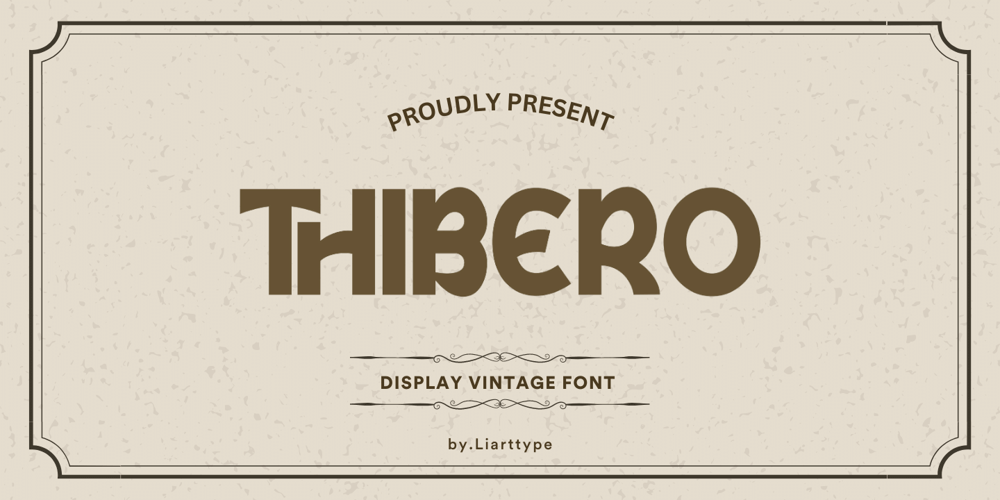
Thibero
Thibero font
Thibero Font Family was designed by Ali Sifak Muftari and published by Liartgraphic. Thibero contains 1 styles and family package options. Hello guys!Introducing our newest product, we call this product the Thibero font is a regular font with a retro styleWith a unique and firm touchThibero fonts are great to use on:fashion magazines, logos, and photography, landing pages, flyers,What’s included- multilingual support- ligatures-alternateThank you, best regardsAli Sifak Muftari